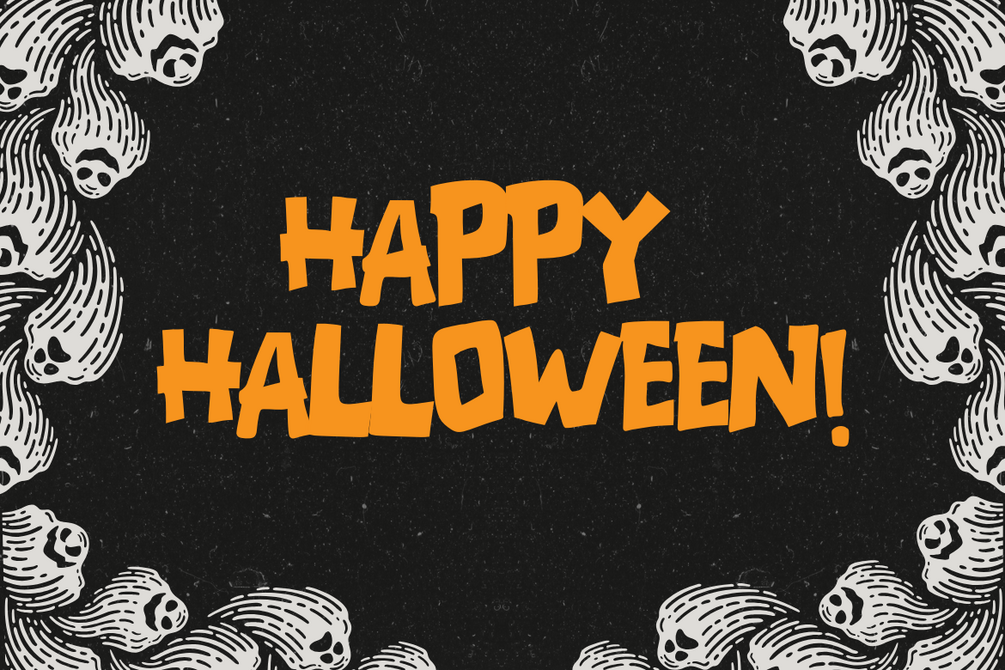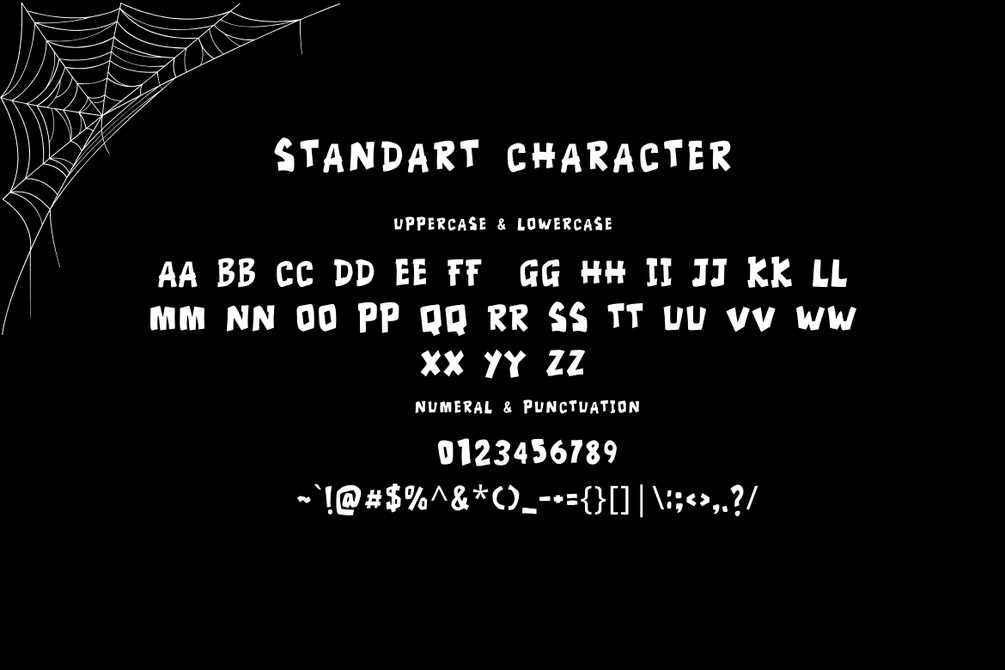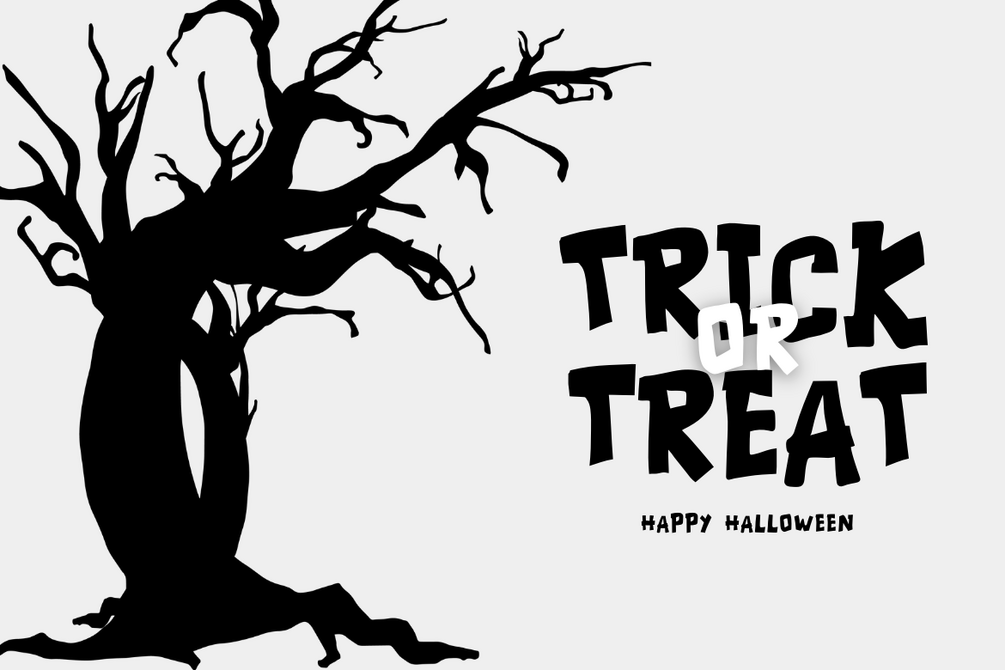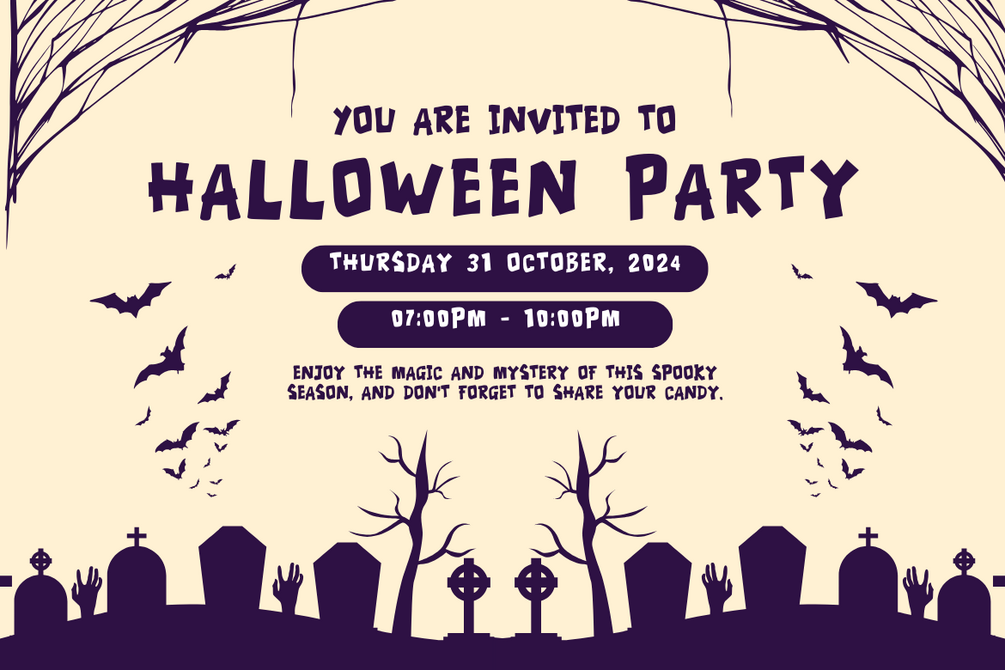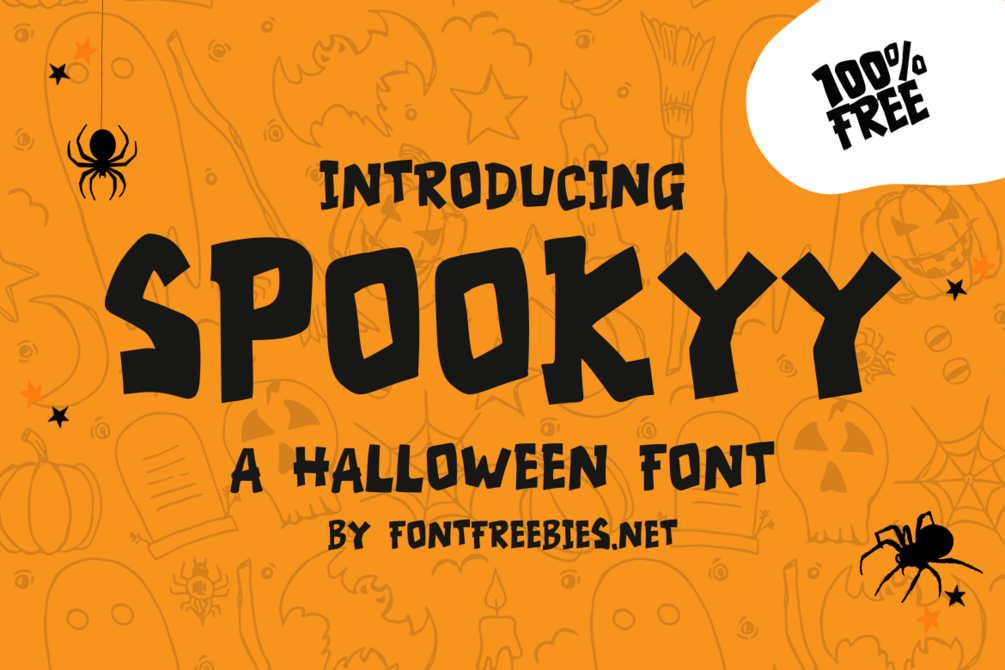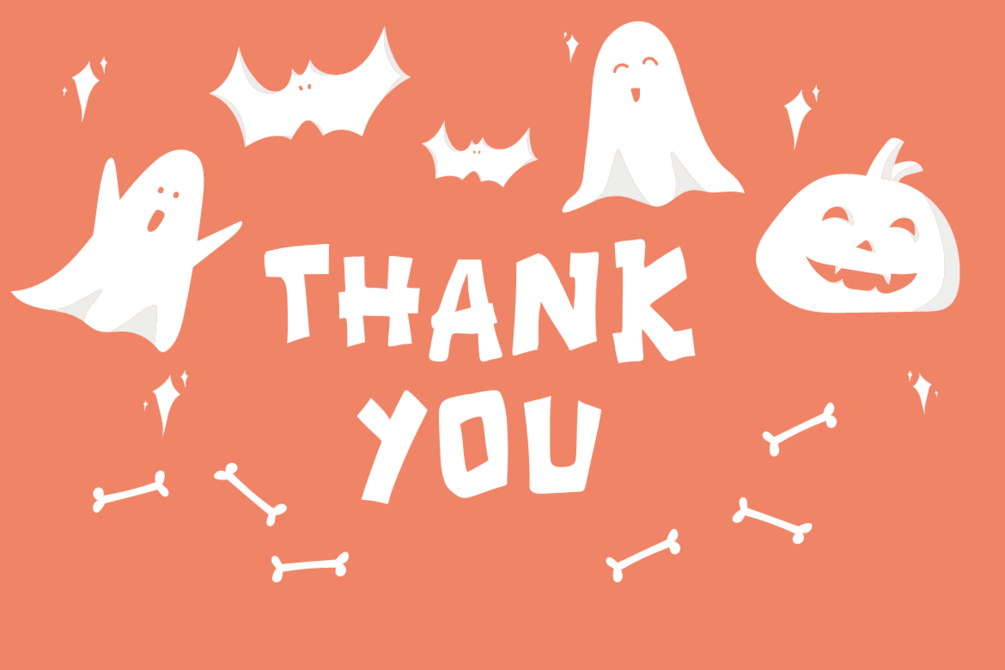
Spookyy - A Halloween Font
Spookyy is a bold, playful Halloween-themed font perfect for adding a spooky touch to your designs. Ideal for event invitations, social media graphics, flyers, and more, this font’s hand-drawn, quirky style is sure to stand out.